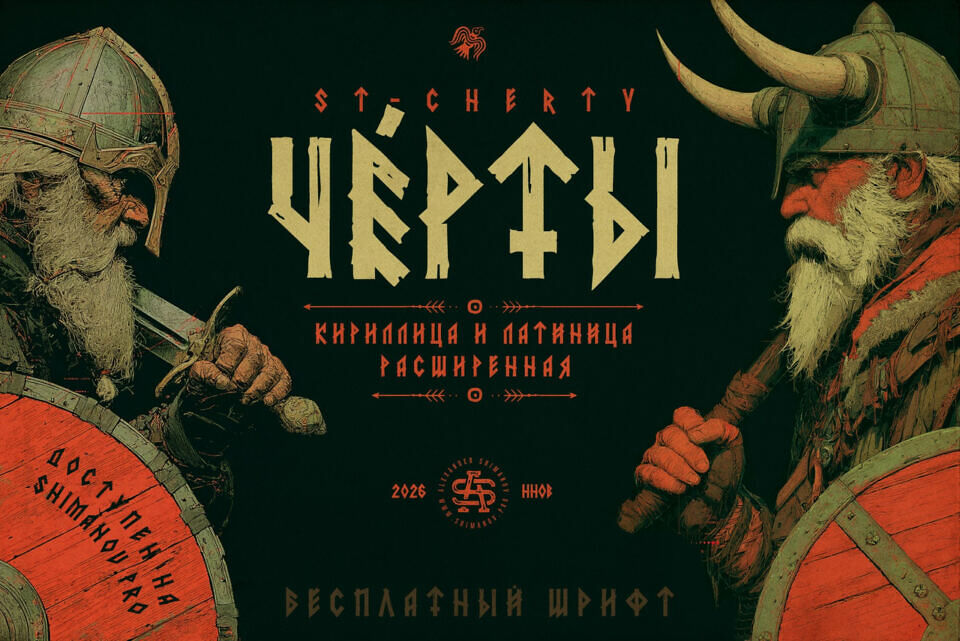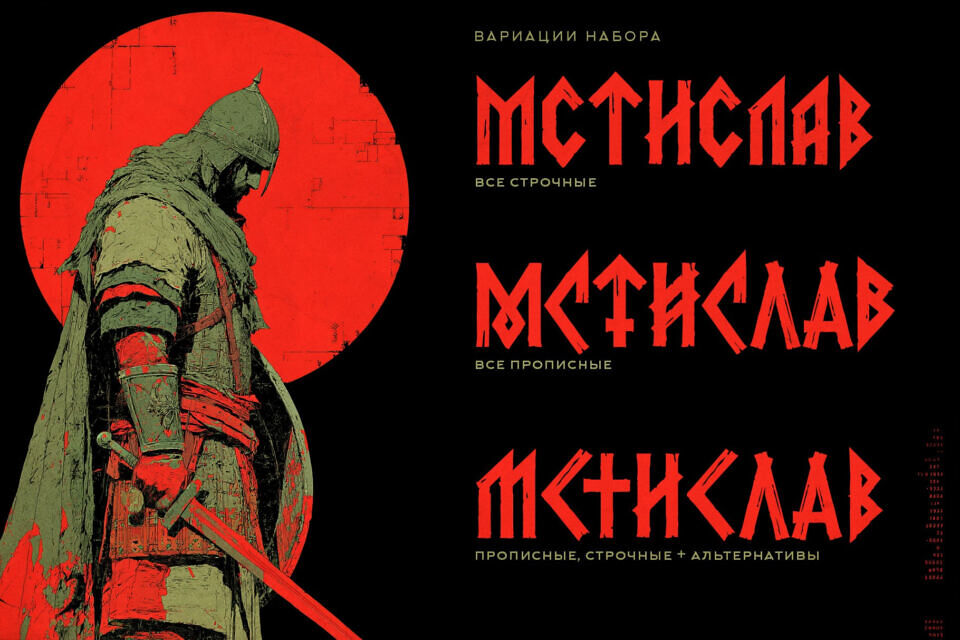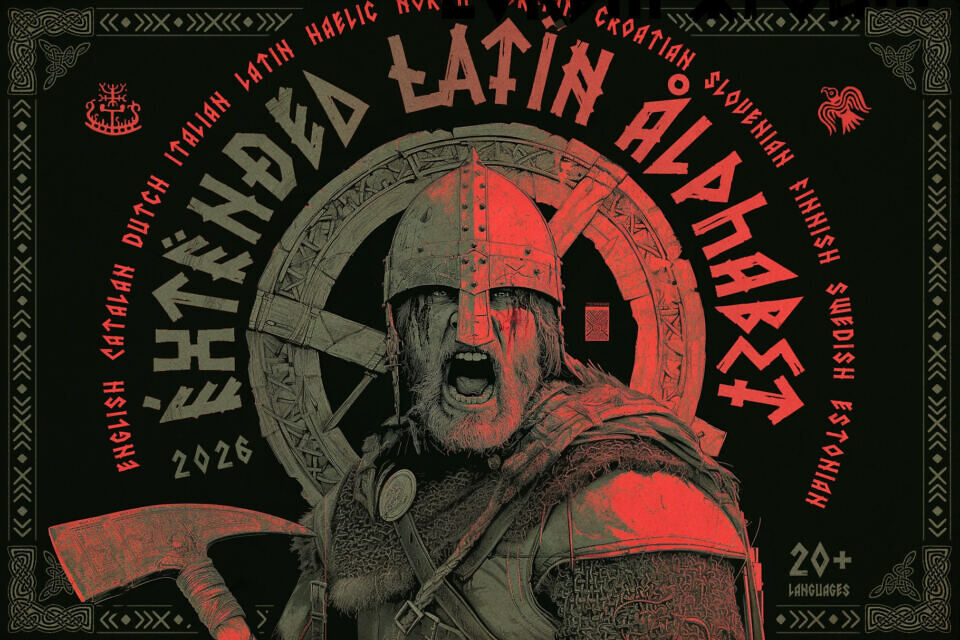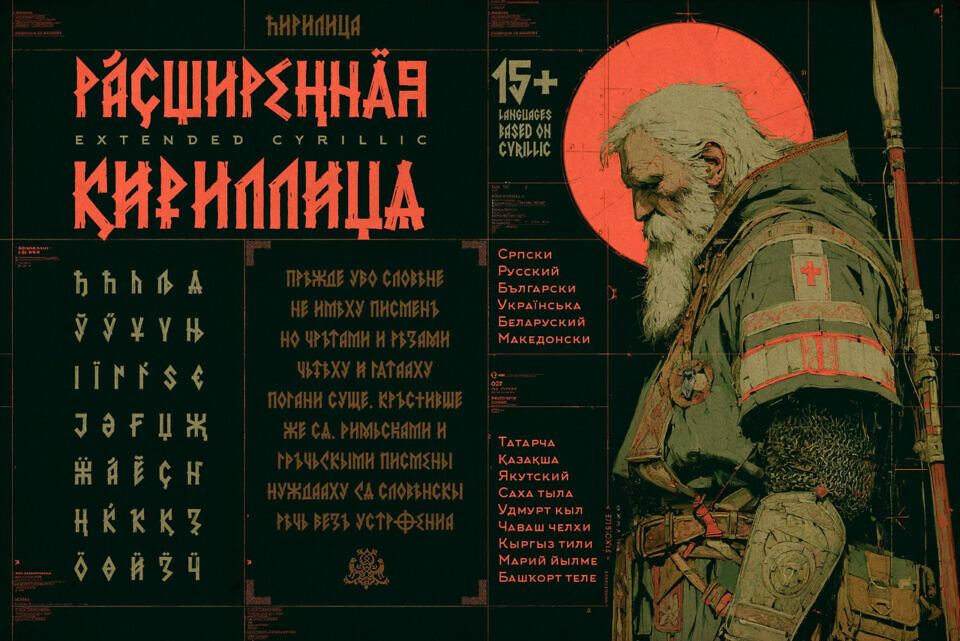
ST-Cherty font was originally created as a logotype for a historical film. However, the client’s requirements conflicted with historically accurate lettering, so the designer invented fictional characters inspired by common modern stereotypes about pre-Christian Slavic writing. Most glyphs are based on Scandinavian runes, mixed with Turkic runes, ancient Greek letters, and even African symbols.
These forms share a carved, engraved style typical of marks scratched into wood or stone rather than written. The result is a decorative, fictional typeface inspired by ancient aesthetics, not a historical alphabet. It includes extended Latin and Cyrillic, numbers, and basic punctuation.